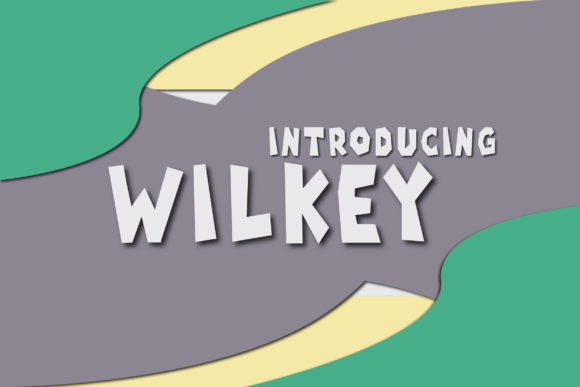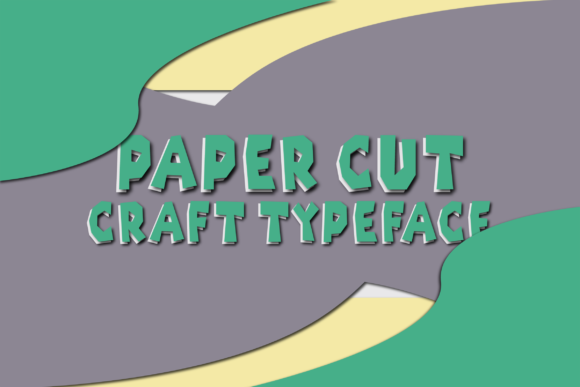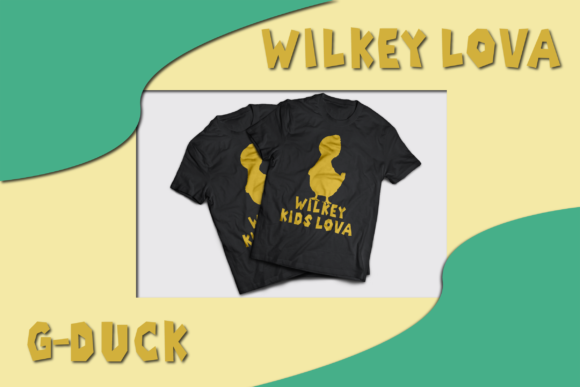
Wilkey Font
Wilkey is a typographic homage to childhood that delivers an incredibly cute and cartoonish font experience. Get inspired by its childish nature, and turn any design idea into an eye-catcher!